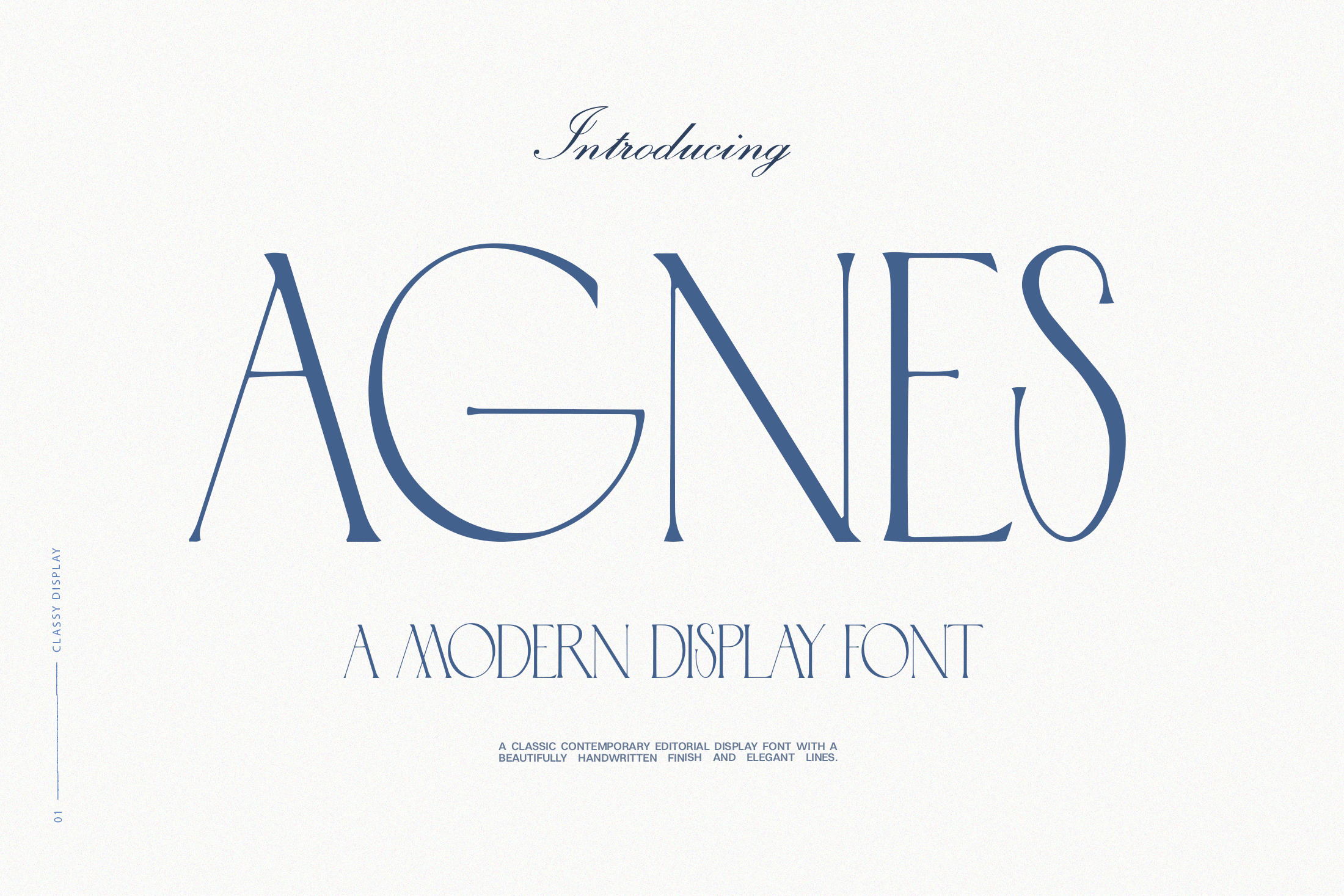
Agnes Modern Display Font
Welcome Agnes, an elegant and ultimately sophisticated display serif font with a hint of nostalgia. Agnes is perfect for editorial designs, for magazines, fashion brands as title and header and for logo, feminine branding and wedding designs. It's elegant and sleek letters come with a handcrafted finish and add a contemporary edge to your elevated creations.